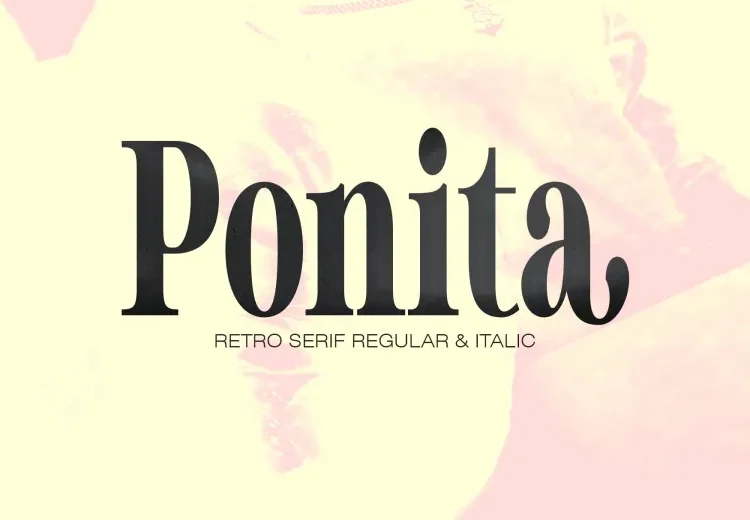
Ponita Font
Ponita Serif Font exudes a modern and vibrant charm while balancing classic elegance. Packed with features like OpenType ligatures and extensive language support, Ponita Serif stands out with its distinctive and striking appearance. Whether you’re creating logos or enhancing your company’s visual identity, this font is sure to captivate attention and leave a lasting impression.
Ideal for versatile applications, Ponita Serif seamlessly complements branding, advertisements, craft projects, wedding invitations, packaging labels, social media posts, quotes, magazines, and more. Its sophisticated yet lively style ensures it elevates your designs, adding a touch of refinement and modernity.